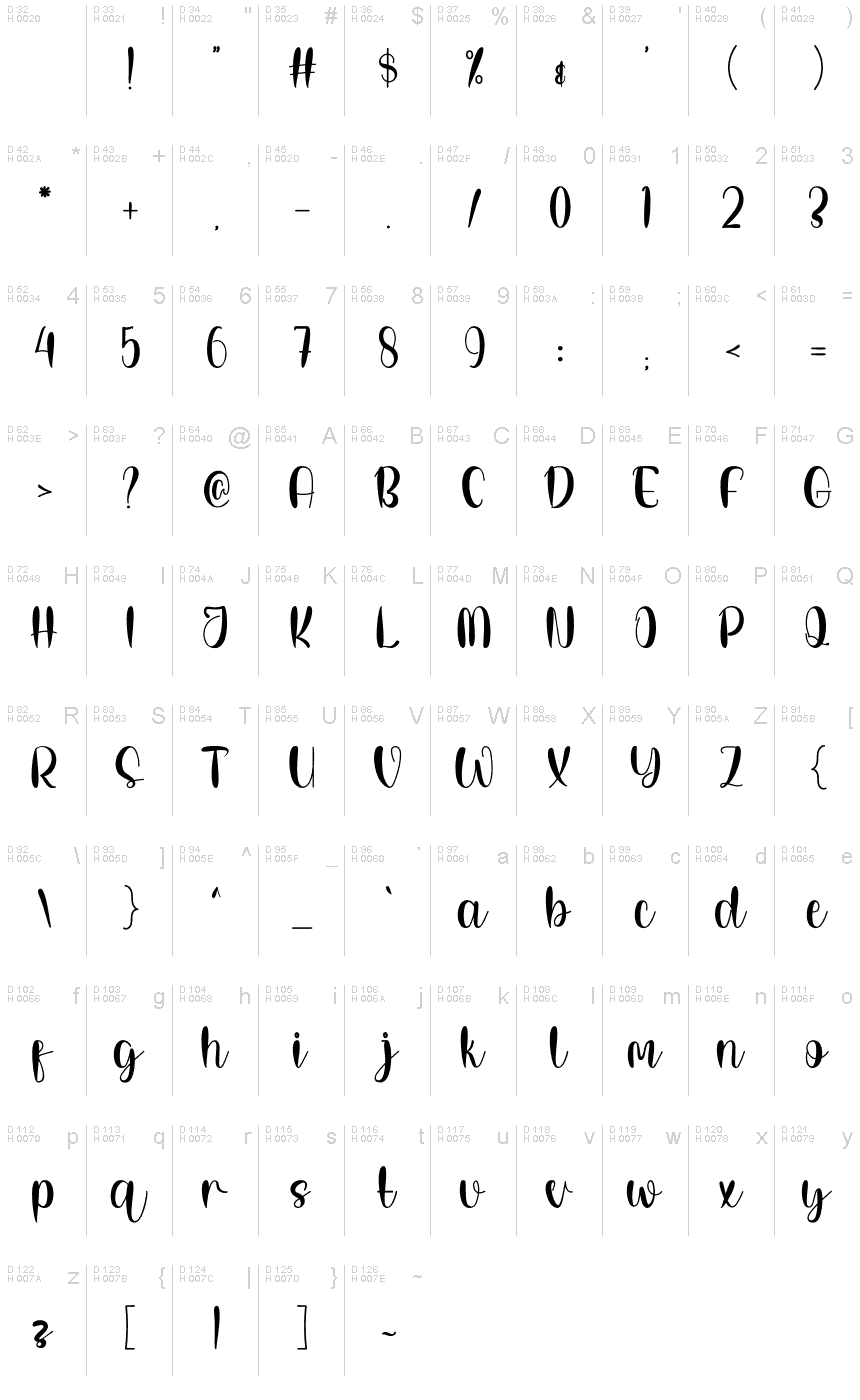
Hello Sunshine
Introducing Hello Sunshine - an fun, bold font designed by Inermedia Studio. With its smooth brush calligraphy style, this font is perfect for creating eye-catching headlines and titles in a range of projects such as invitations, logos, and posters.